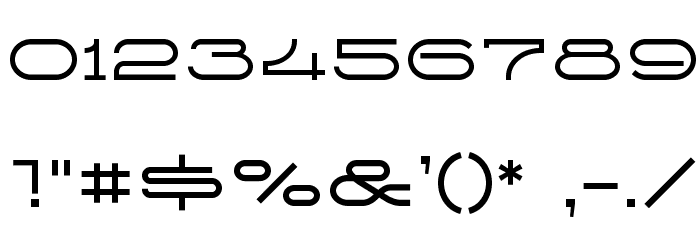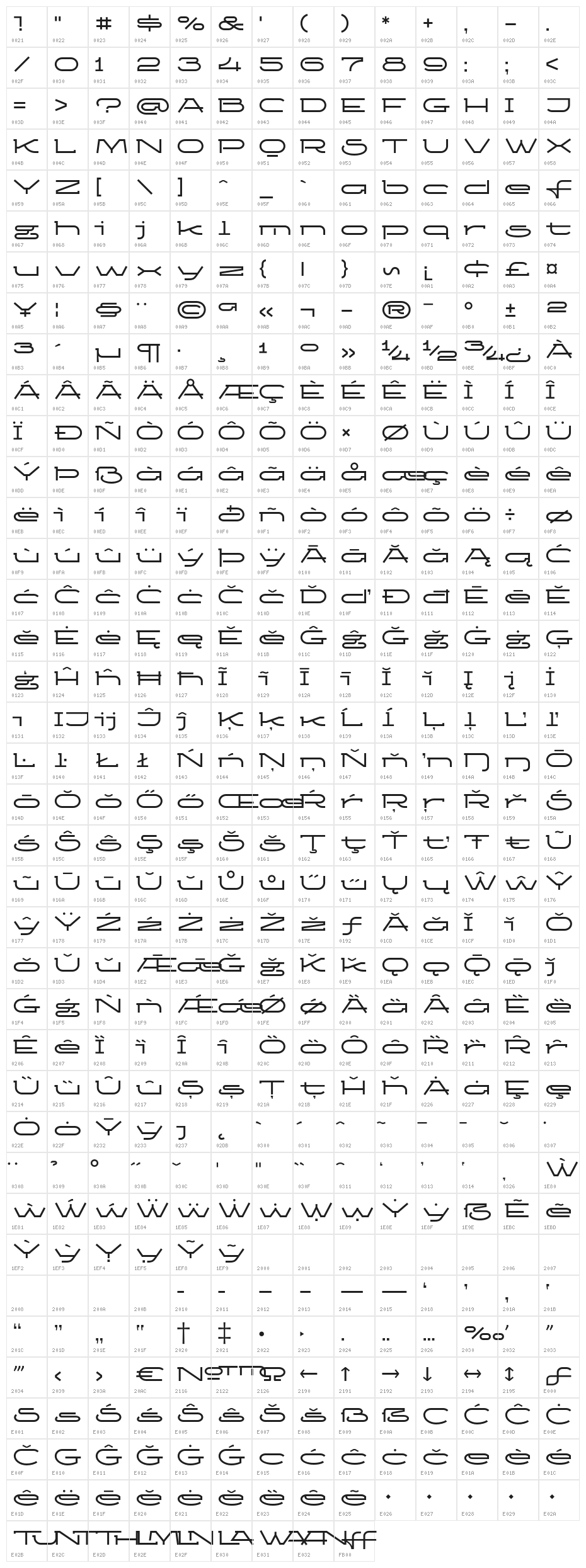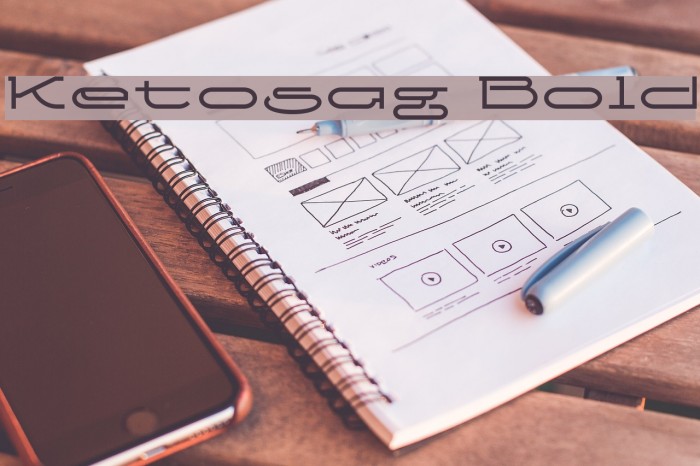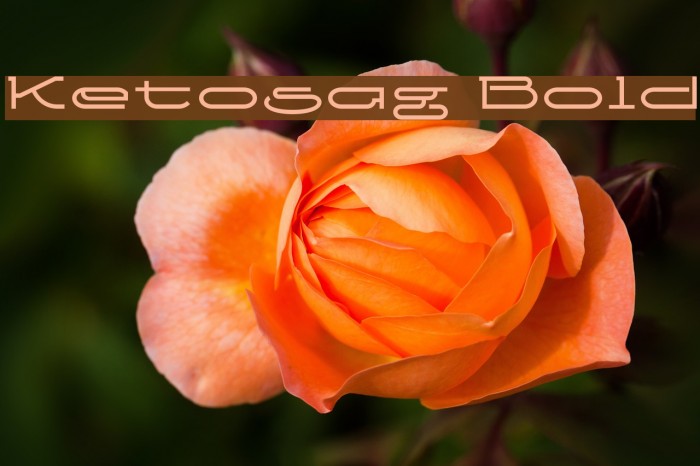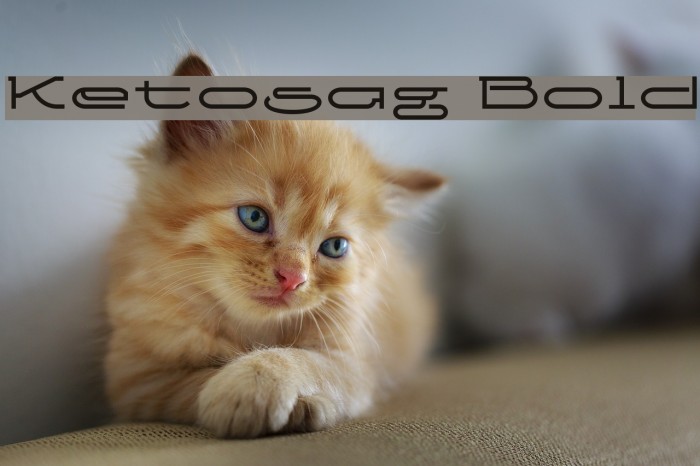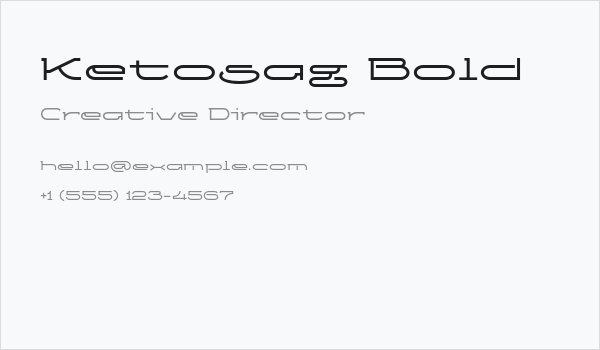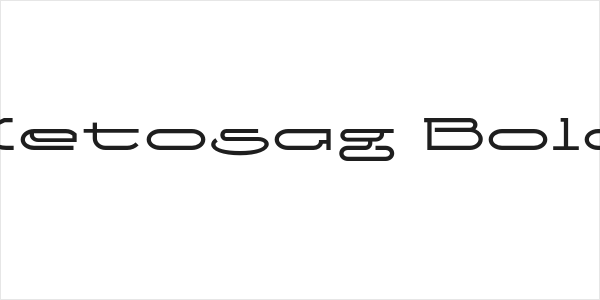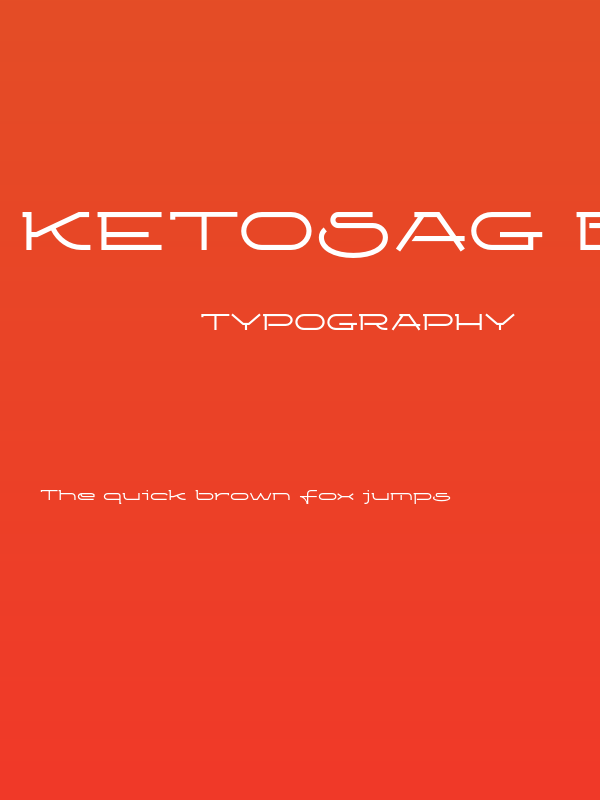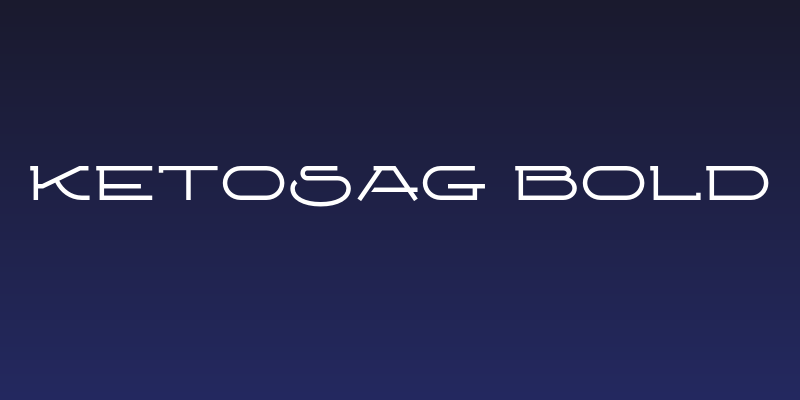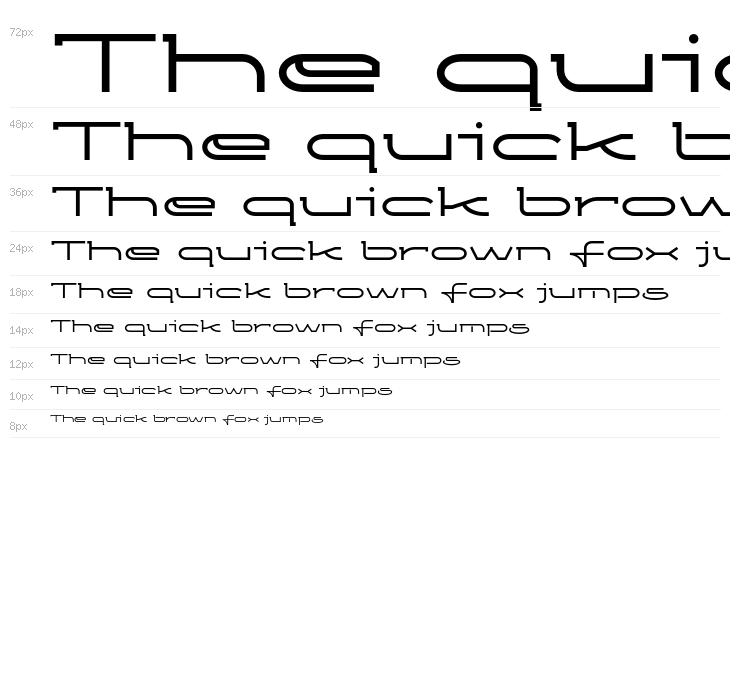
Ketosag Bold Font
Ketosag Bold Description
This font features a futuristic and geometric design, characterized by its clean lines and minimalistic style. The uppercase and lowercase letters maintain a consistent height, creating a uniform appearance. The characters are slightly elongated, giving them a sleek and modern look. The numerals and special characters follow the same design principles, ensuring coherence throughout the typeface. The overall aesthetic is both contemporary and versatile, making it suitable for a variety of design applications.
Overall StyleFuturistic
Proposed ProjectsIdeal for technology branding, modern posters, sci-fi book covers, and innovative product packaging.